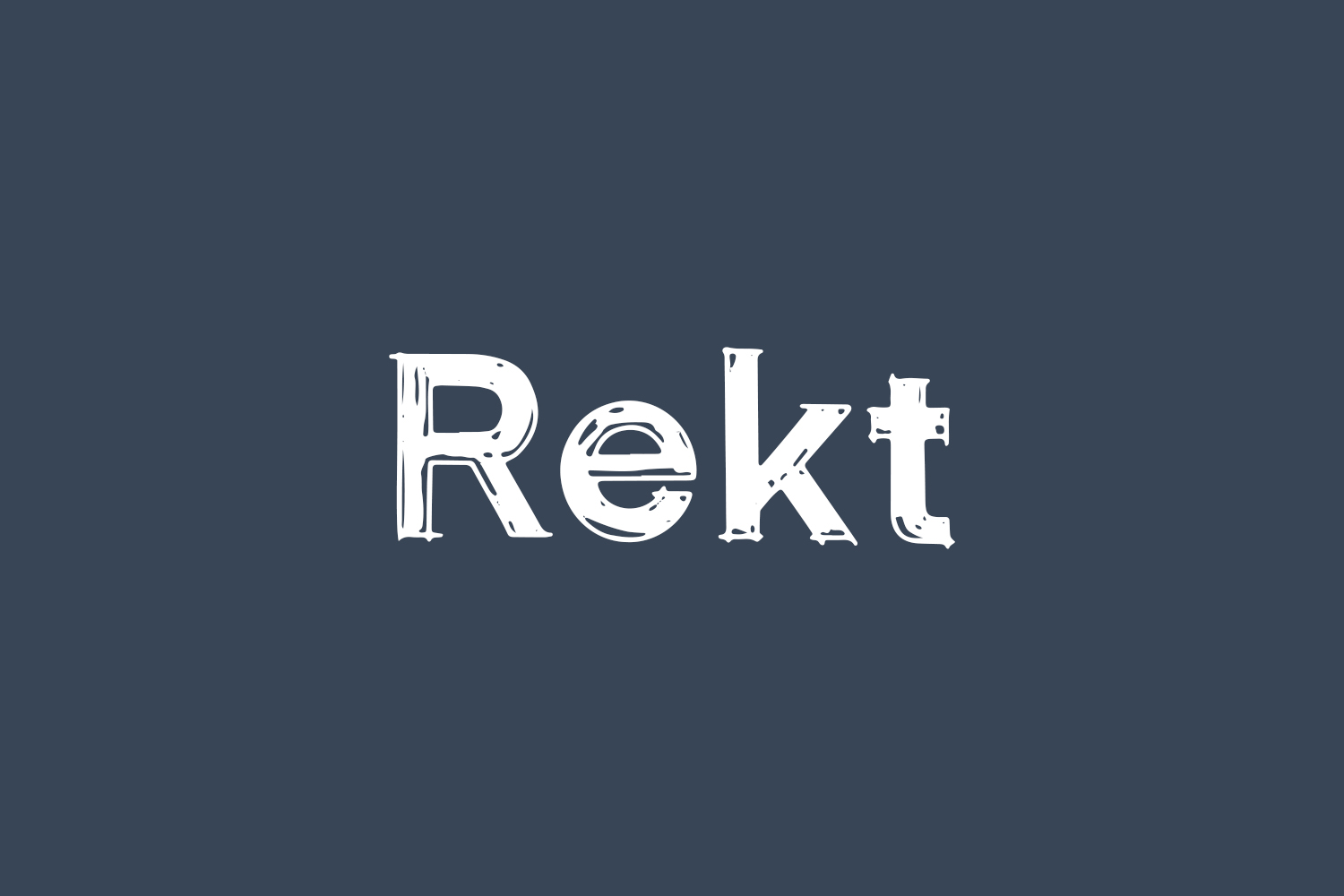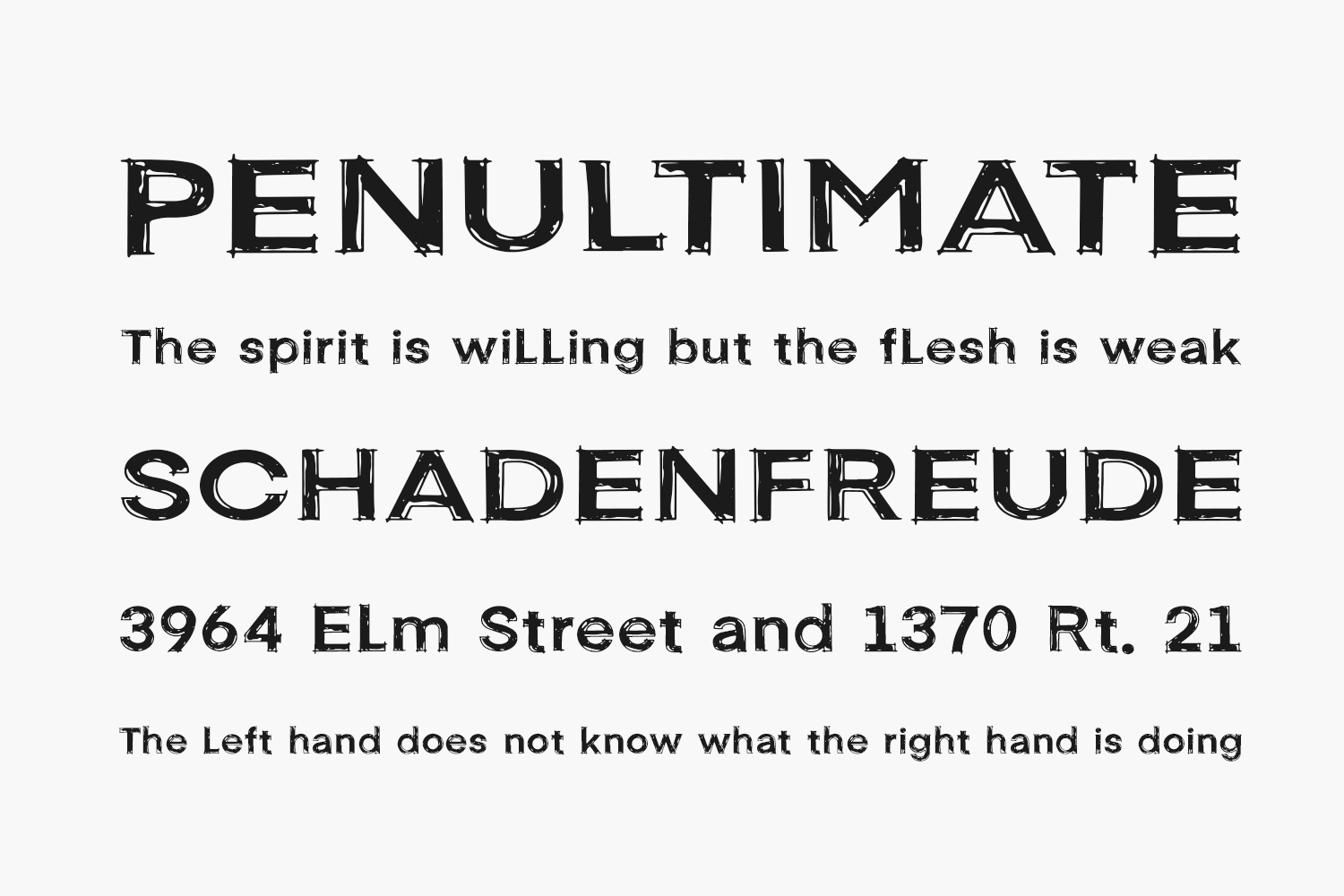
Rekt Free Font Family is a bold and sharp-looking display font, that will truly inspire your works. Use this font for your designs and explore its endless possibilities. Rekt Free Font Family was designed by Choirul Masruroh and is free for personal use only. Please purchase the full version for commercial use.